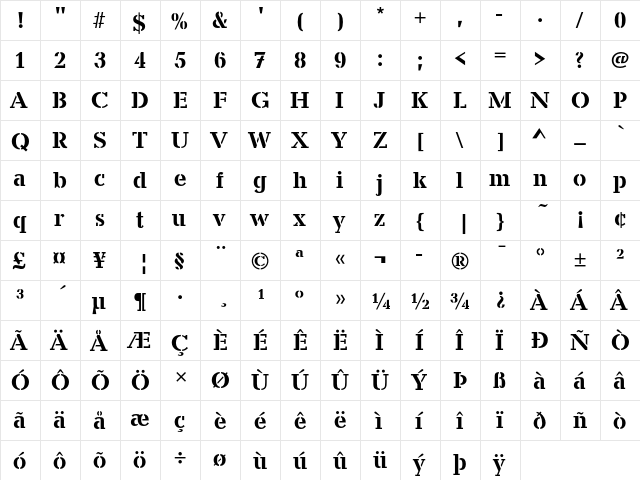
Candida D OT Stencil Medium
Design Context for Candida D OT Typeface
Candida D OT borrows the utilitarian aesthetic of stencil lettering, with its characteristic cutaways and no-frills construction lending an industrial edge.
Ideal for industrial branding, streetwear, military-adjacent aesthetics, and urban signage projects.
Pro Tip: Pair Candida D OT with raw, utilitarian design elements — exposed concrete textures, flat colour, and minimal ornamentation suit it well.